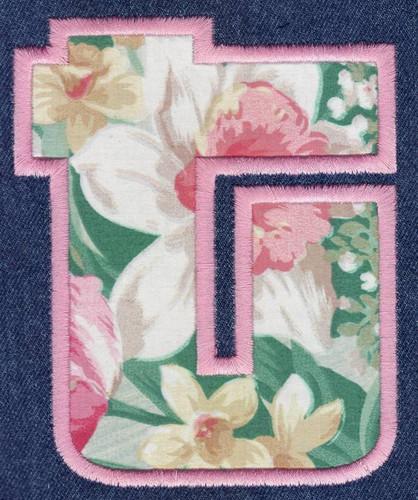
500 C'mon Down Applique Font
C'mon Down Applique Font comes in 2", 3", 4", 5", 6" and 7" heights. Set height is based on the capital "A" with swoosh and all other characters are sized proportionally. Features uppercase letters, lowercase letters, numbers and four punctuation marks. Some uppercase letters and lowercase letters are identical. Applique instructions may be viewed by clicking on the "applique instructions" link above.